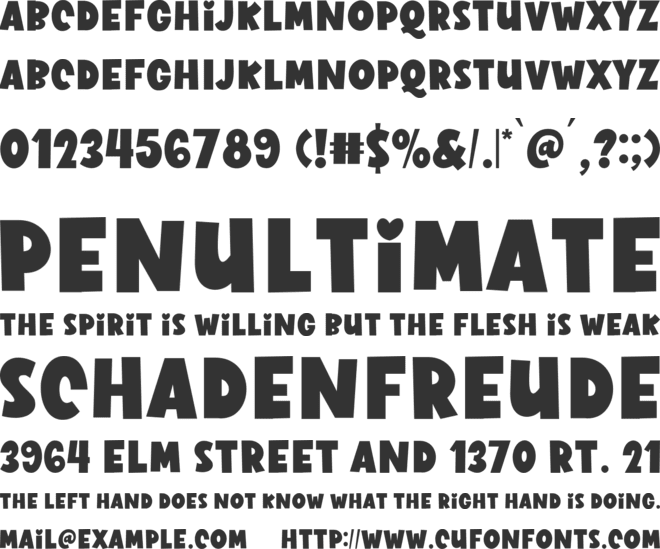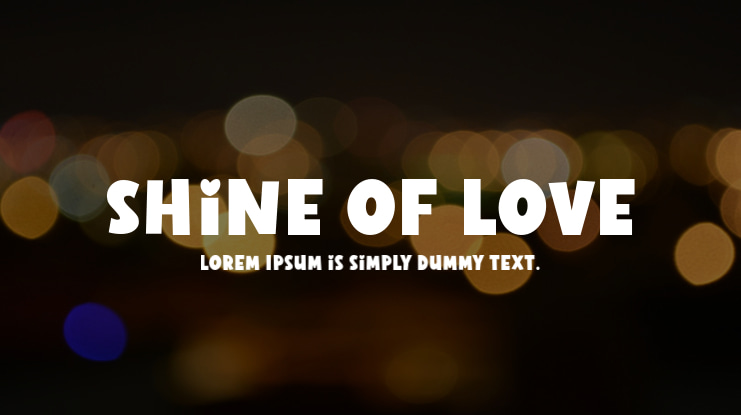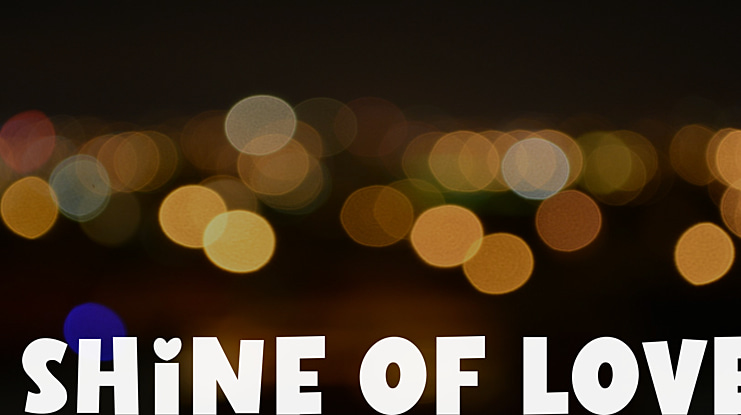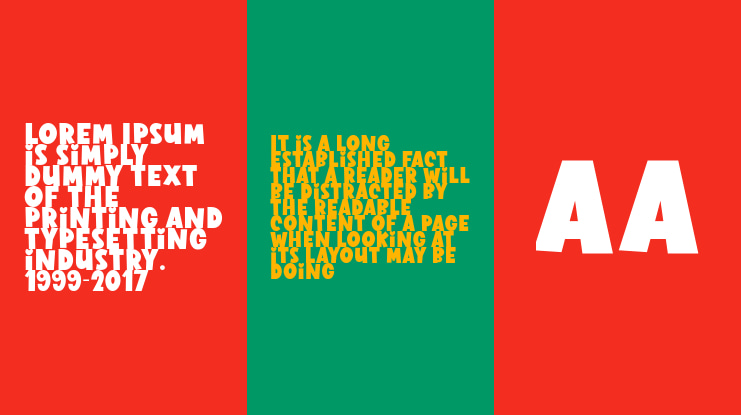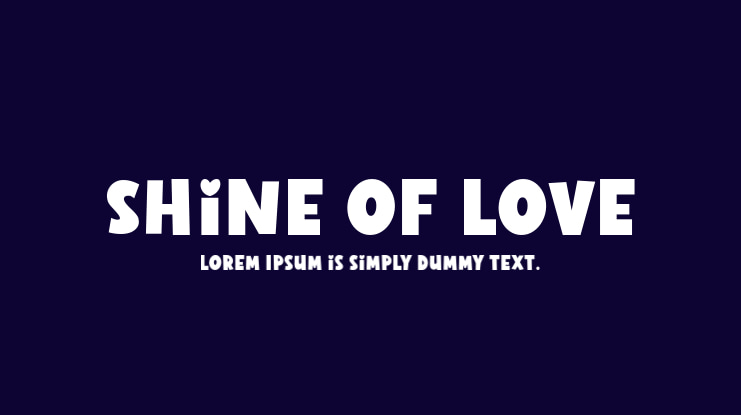
Shine of Love Font
Cute and playful display fonts crafted with heart, especially for you. It's perfect for children-themed designs, Such as t-shirt designs, story books, packaging, children’s activity or school projects, posters, greeting cards, valentine’s crafts, and more!
Available in 3 variants :
- Regular
- Fun
- Shadow
Shine of Love font preview